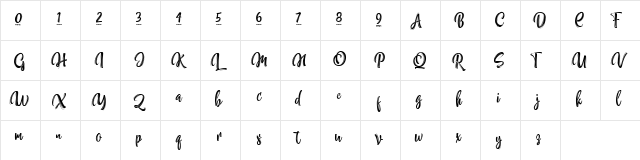
Nettizen Script_TRIAL Regular
Design Context for Nettizen Script_TRIAL Typeface
Nettizen Script_TRIAL flows with the natural rhythm of handwritten lettering, making it ideal for designs that call for warmth and personal expression.
Font Pairing: Combine Nettizen Script_TRIAL with a simple geometric sans for maximum contrast — the tension between flowing curves and clean structure is a classic typographic pairing.
Pro Tip: Use Nettizen Script_TRIAL for short runs of text — names, titles, or taglines. Extended body copy in script faces tires the eye quickly.